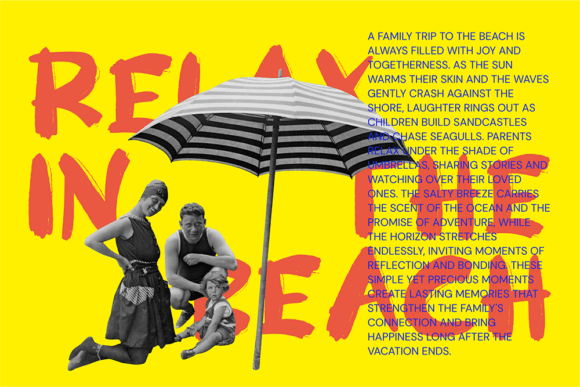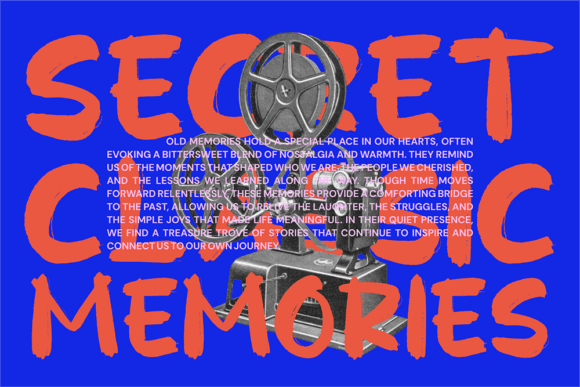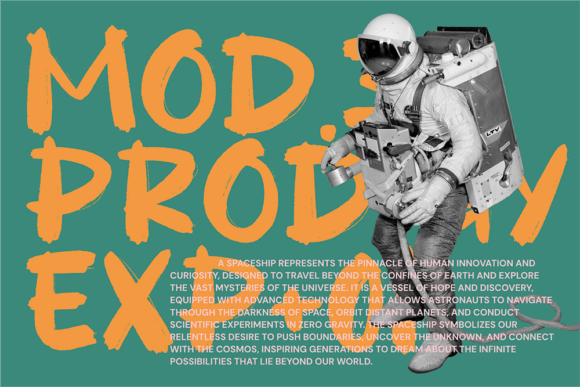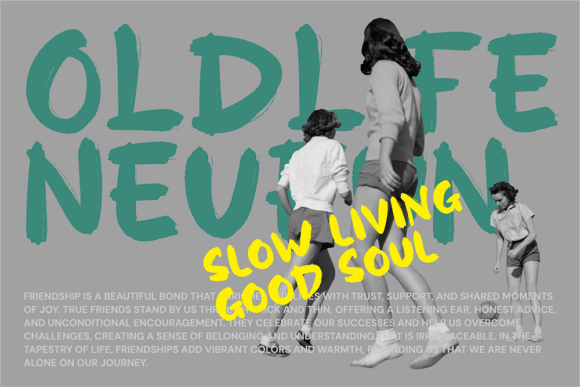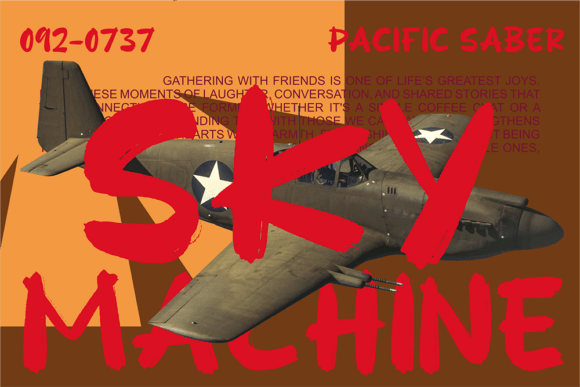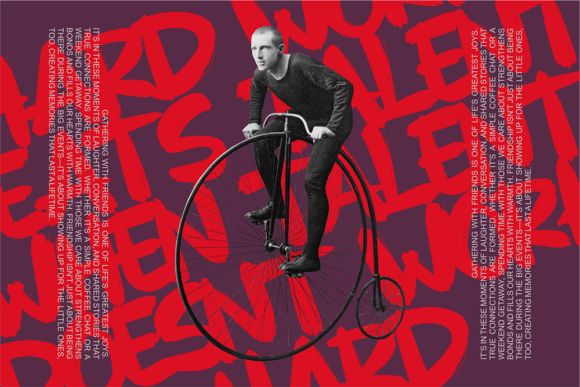
Introduction to Sadigo Urbane Font
Imbued with the spirit of the city streets, Sadigo Urbane is a vibrant, brush-script font characterized by its bold, rugged strokes.
It combines the power of urban aesthetics with an artistโs nuance, making it an ideal choice for magnetic headlines, distinct branding, statement posters, or captivating packaging designs With a smooth flow and a lifelike handmade feel, Sadigo Urbane introduces a modern, unruly charm while preserving readability and elegance.
Key Features of Sadigo Urbane Font
Why Choose Sadigo Urbane Font?